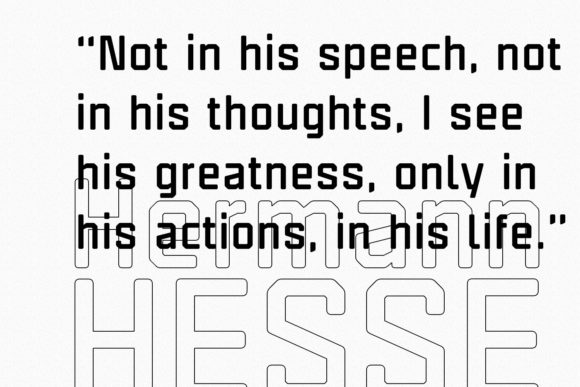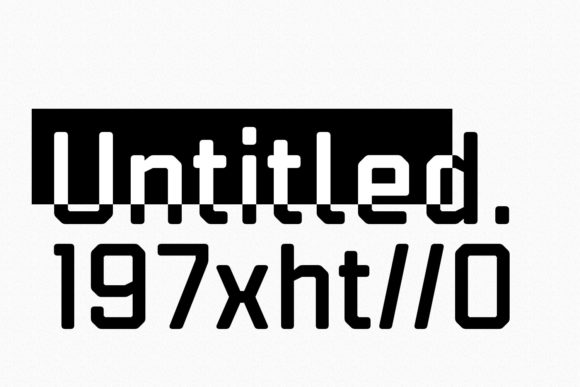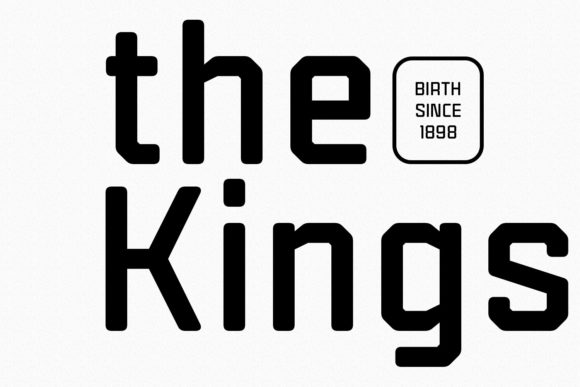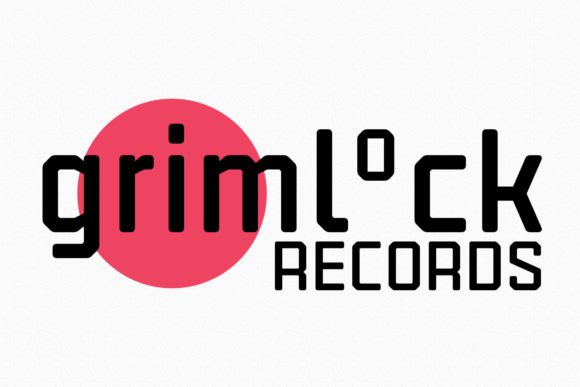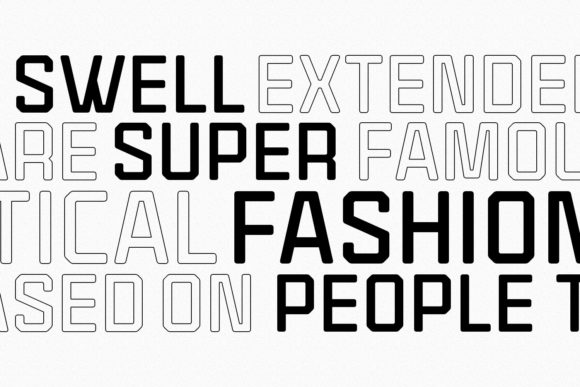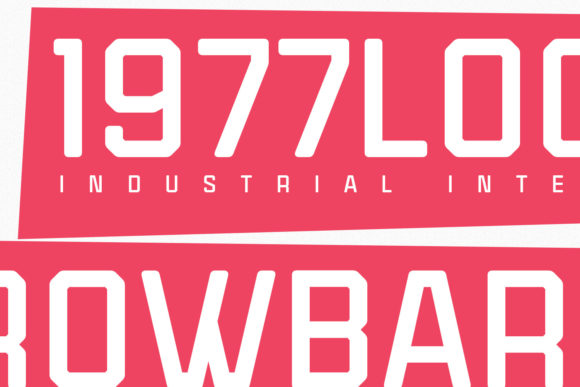
Introduction to Mathics Round Font
Have you ever stared at a blank page, desperately searching for the perfect font to bring your creative project to life? It’s a moment we’ve all been in – the struggle is real. But what if I told you there’s a font that can help you break through that creative block and deliver high-quality results every time?
Meet the Mathics Round Font, a game-changing industrial sans serif font designed to give you a creative boost. With its soft-rounded edge strokes and fun characters, this font is perfect for logo design, social media, movie and book titles, and even short or long text. Its versatility and unique design make it a valuable resource for designers looking to elevate their work and stand out from the crowd.
Key Features of Mathics Round Font
- High-quality design: The Mathics Round Font offers a unique and stylish design perfect for creative projects.
- Unique characteristics: The Mathics Round Font features a distinctive rounded shape and smooth lines, making it perfect for creating eye-catching designs.
- Perfect for creative projects: With its unique design and high-quality features, the Mathics Round Font is ideal for use in creative projects, such as logos, branding, and typography-based designs.
Honest Review: Mathics Round Font
I recently stumbled upon the Mathics Round Font while searching for a high quality design resource to enhance my creative project. As a designer, I appreciate fonts that are easy to work with and offer a transparent background for seamless integration.
One of the standout features of the Mathics Round Font is its versatility. It’s perfect for a wide range of applications, from digital to print media. The font’s round design gives it a friendly and approachable feel that’s sure to engage your audience. ✨
However, I did encounter a few limitations while using the Mathics Round Font. The font’s limited character set may not be suitable for more complex projects, and it’s not as customizable as some other fonts. ⚠️
Overall, I’m impressed with the Mathics Round Font and would recommend it to designers looking for a high quality, free design resource. While it may not be perfect for every project, it’s a great starting point for many creative endeavors.
- High quality design resource
- Versatile design suitable for digital and print media
- Round design gives a friendly and approachable feel
Tips for Getting the Most Out of Mathics Round Font
To get the most out of Mathics Round Font, use it in combination with other design resources, such as graphics and images. Experiment with different font sizes, colors, and styles to create a unique and eye-catching design. Also, make sure to use a high-quality version of the font for the best results.
The Mathics Round Font is commonly used for creative projects, such as logos, brochures, and social media graphics. It’s also a popular choice for presentations and documents, where a professional and unique touch is desired.